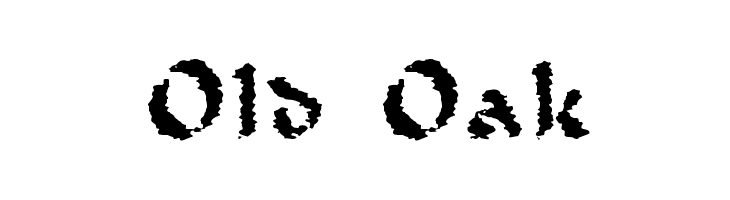
A bold, distressed font with a grungy, textured appearance.
A bold, textured font with a distressed, vintage look.
A bold, distressed font with a rugged, textured appearance.
A bold, distressed font with a rugged, hand-crafted appearance.
A bold, distressed font with a vintage, hand-crafted appearance.